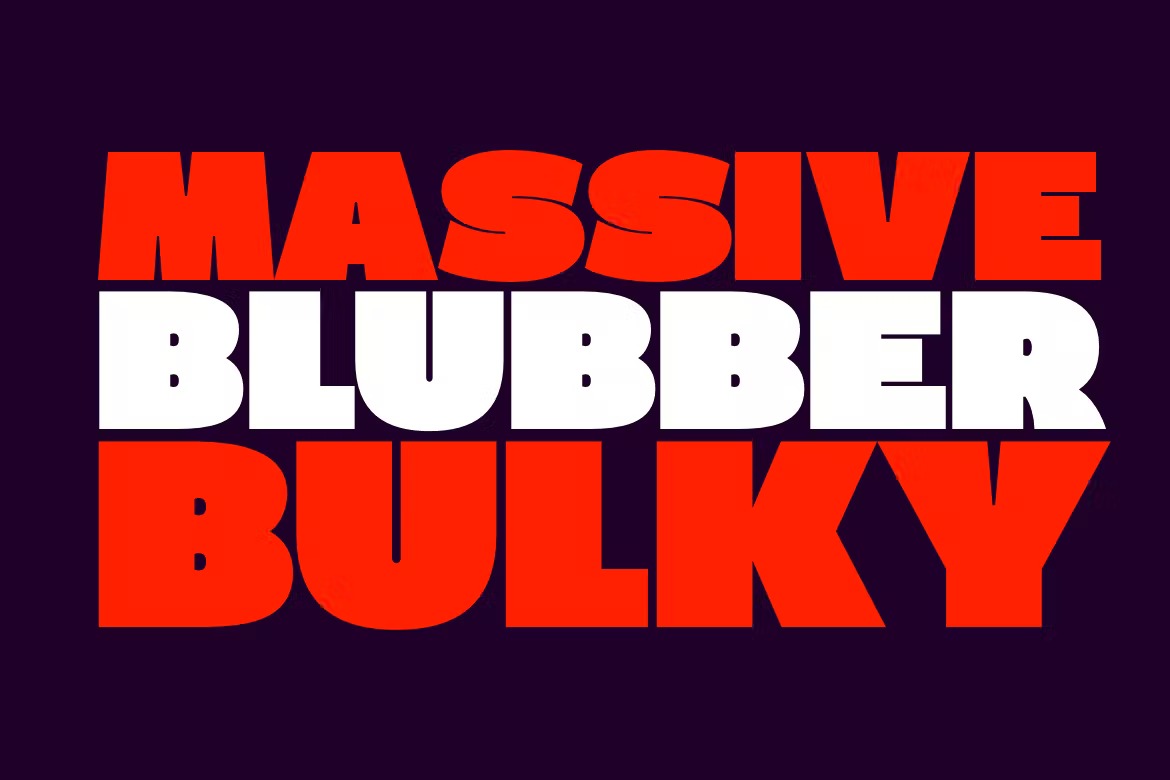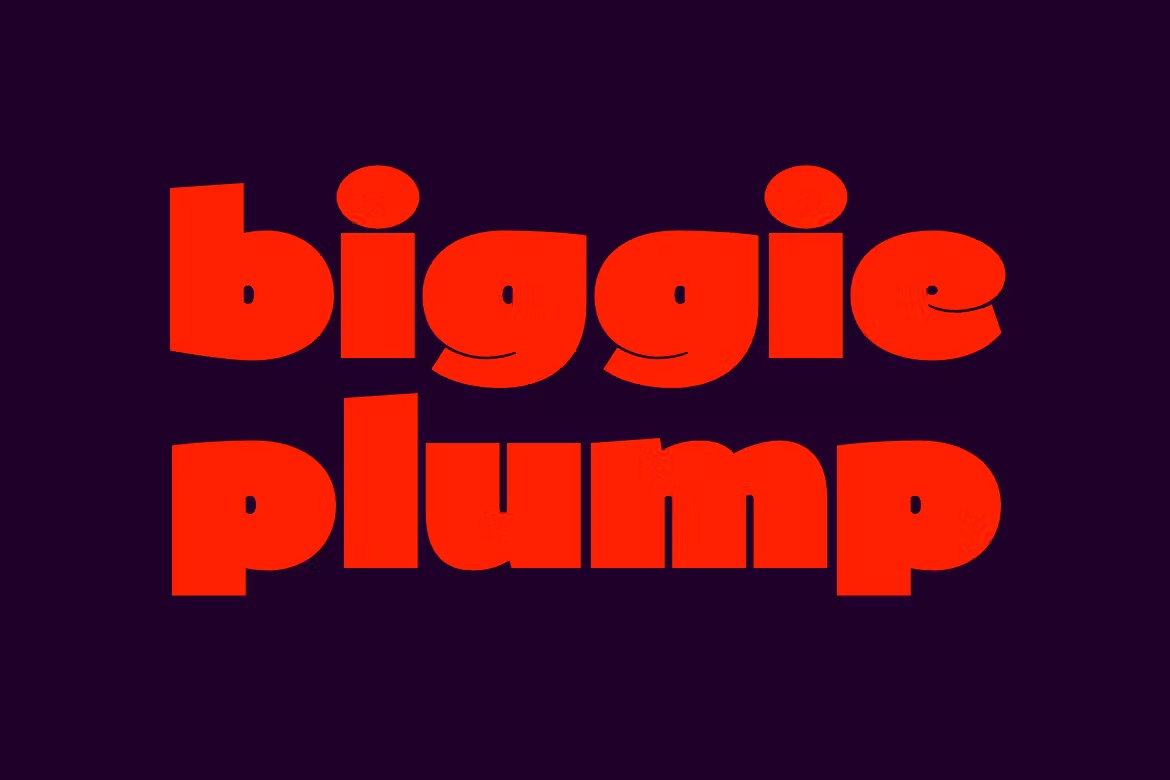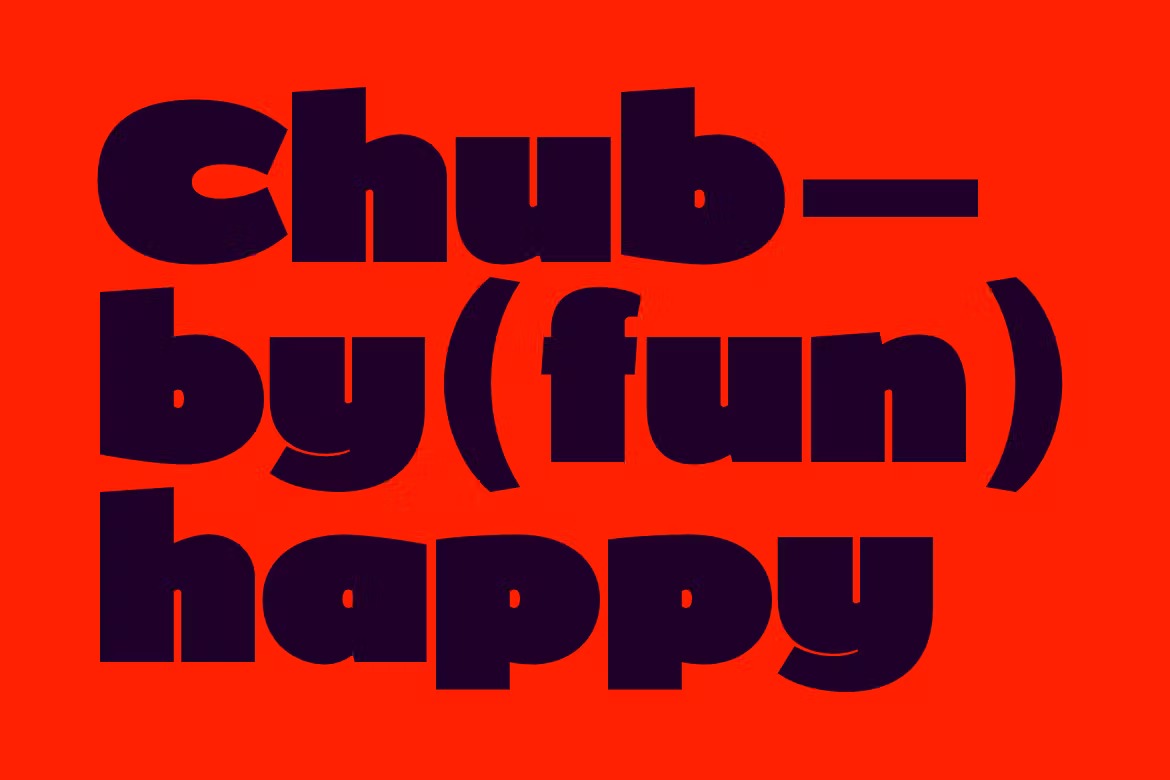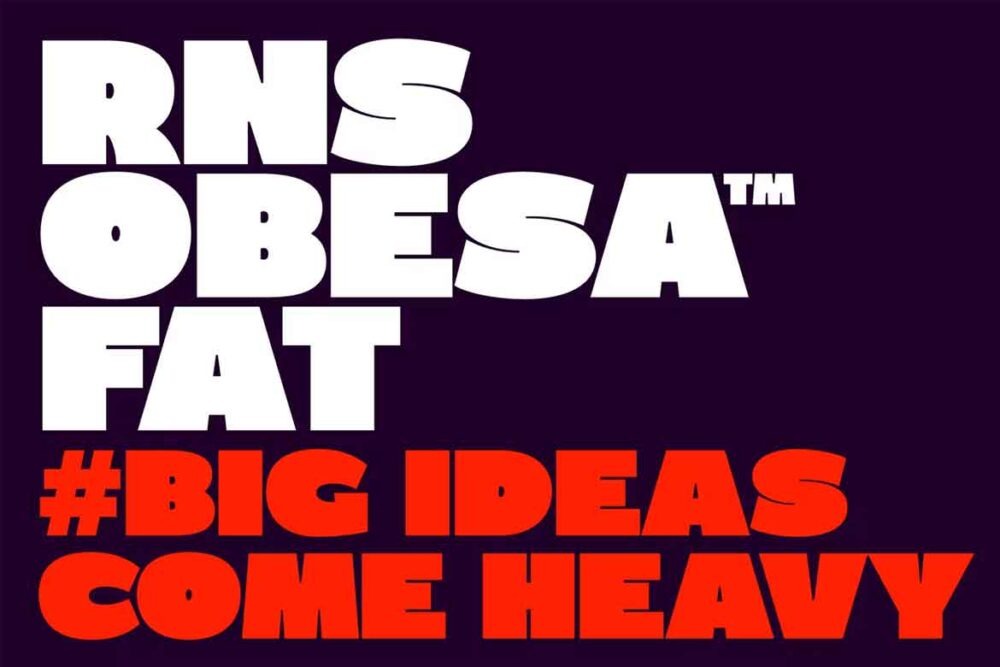
RNS Obesa Fat Sans Serif Font
This typeface designed by RNS Fonts is a clean, contemporary, condensed sans serif font with a minimal counterpunch to achieve a black color for heavy compositions, completely full of curves and expressive sharp vertices makes it the perfect companion to poster design. A playful strong personality with attractive curves.